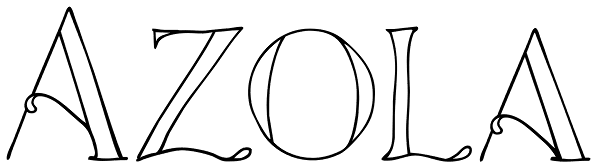
Azola
The Azola font family is elegant, hand lettered & charming. Azola features extended characters, and contains West European diacritics & ligatures. Highly suitable for international environments & publications.